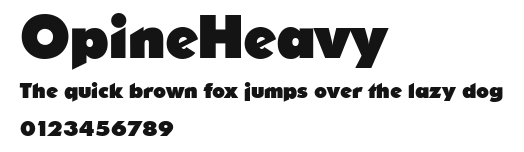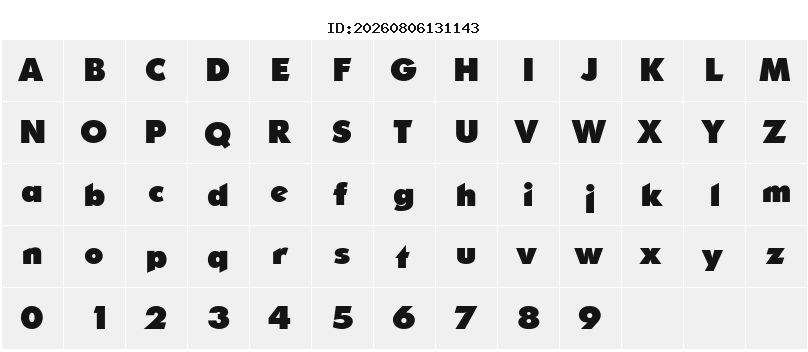
OpineHeavy Preview
• Font Name: OpineHeavy
• Font ID: Altsys Fontographer 3.5 OpineHeavy Regular
• Full Font Name: OpineHeavy Regular
• Version: Altsys Fontographer 3.5 2/9/93
• PostScript Name: OpineHeavy
• Character Count: 200
About OpineHeavy.ttf
OpineHeavy.ttf is a modern, elegant sans-serif font designed for ultimate readability and visual harmony. Perfect for branding, headlines, web design, and print materials.